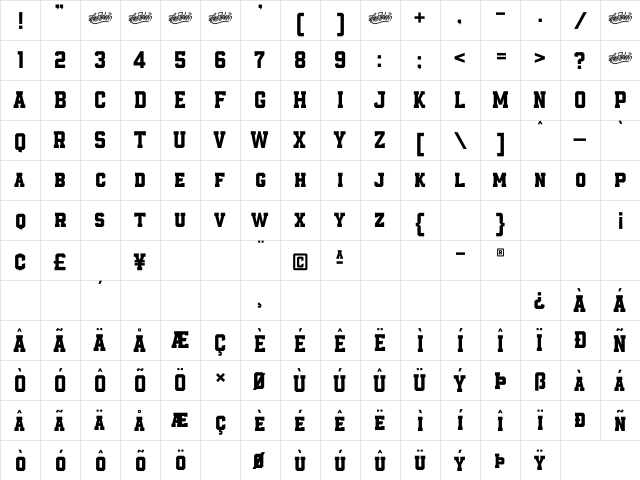
Empirez Regular
Design Context for Empirez Typeface
Empirez is a composed and adaptable typeface that performs quietly and consistently across a wide range of design contexts.